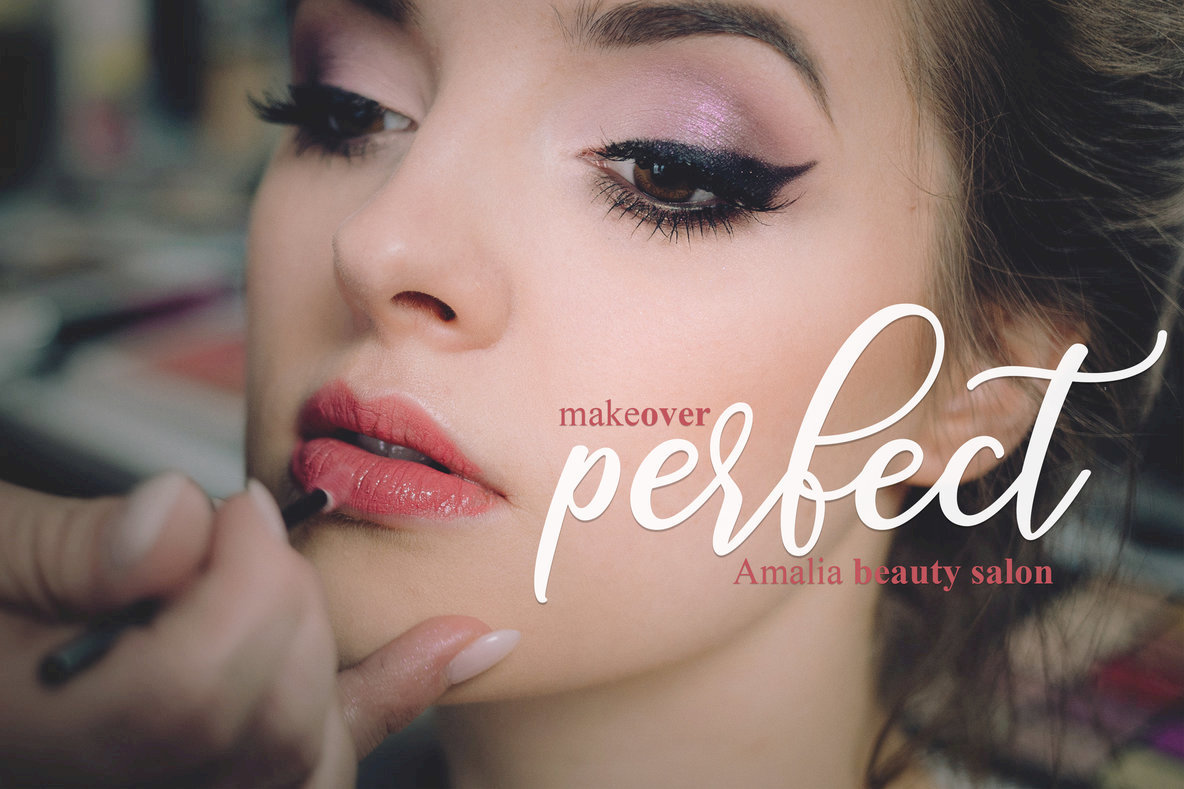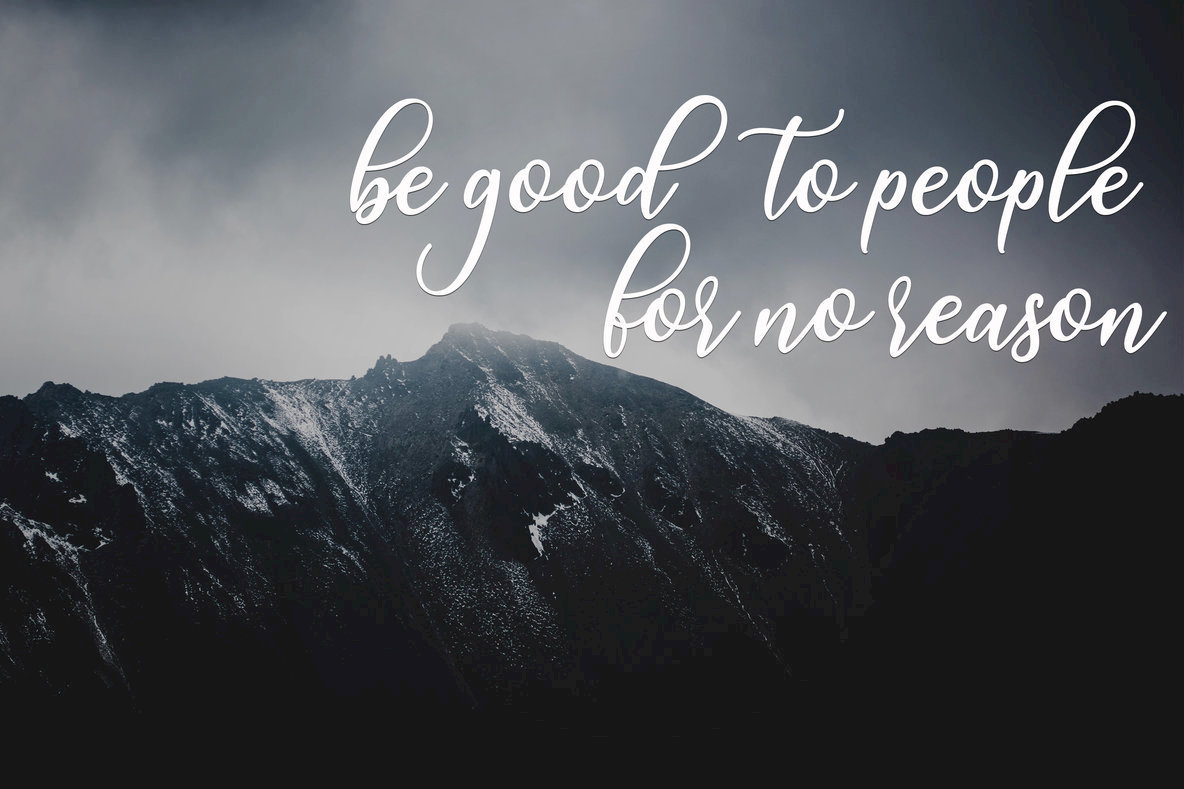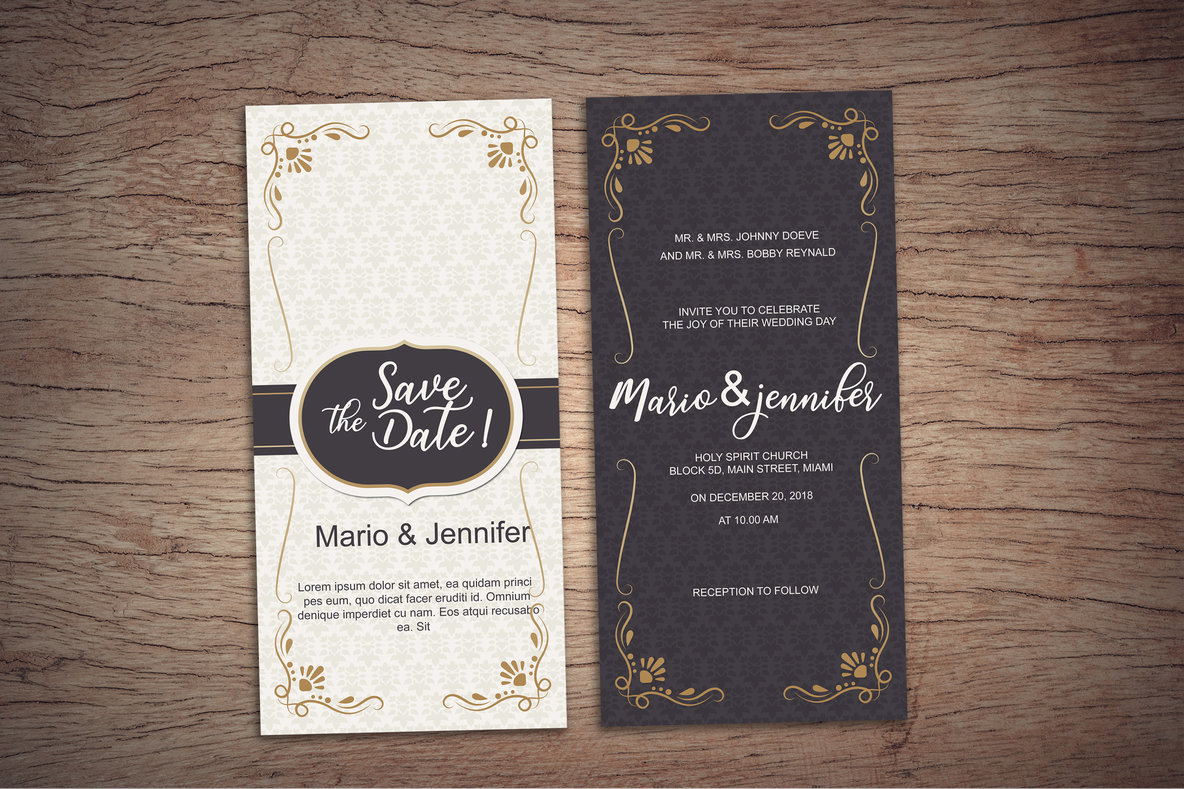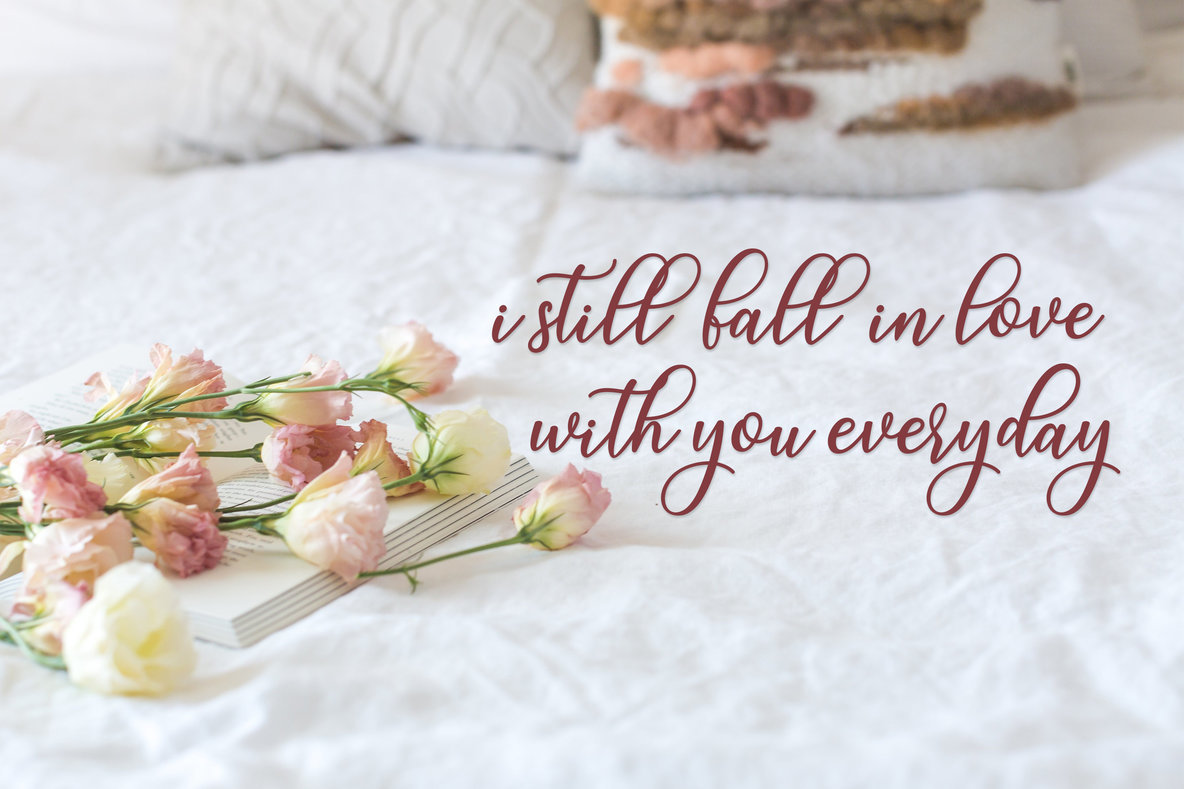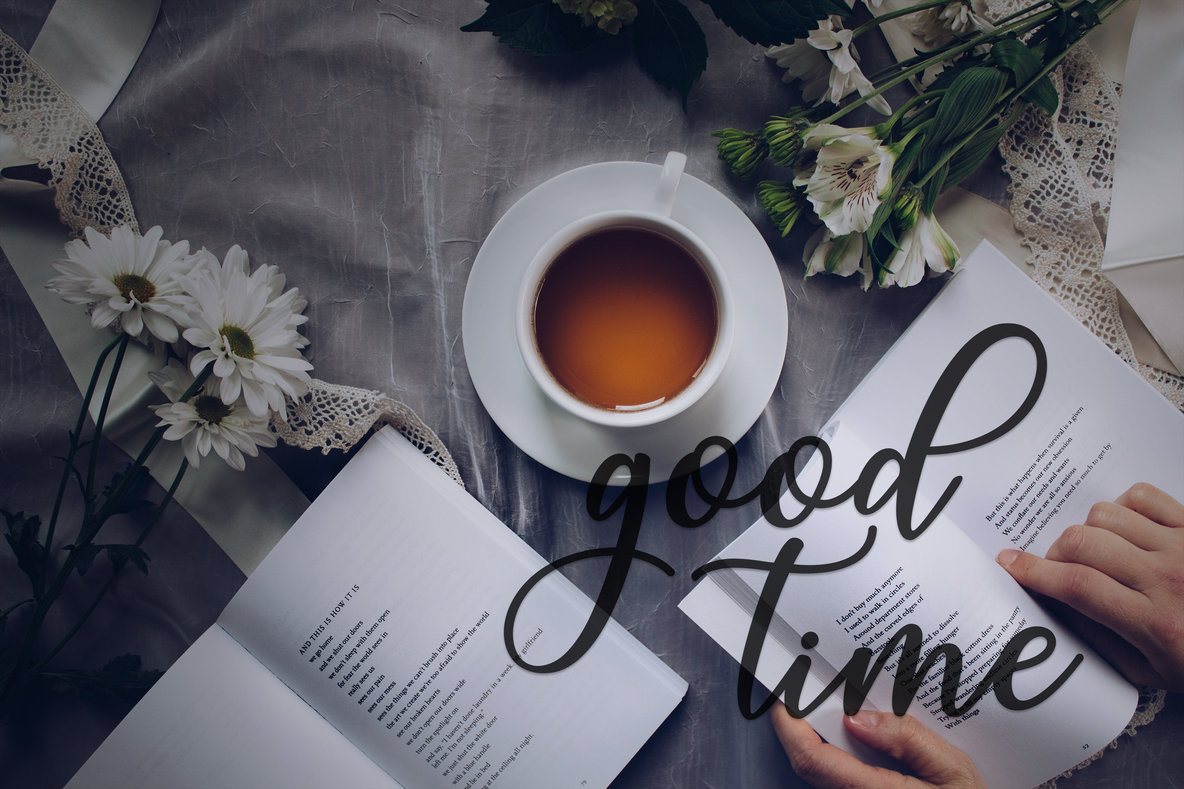
Magic Script Font
Magic Script Regular
Magic Script offers a sophisticated blend of modern calligraphy that captures the fluidity of authentic handwriting. Ideal for designers looking to enhance their creative projects, it seamlessly suits a range of applications such as branding, wedding invitations, and editorial layouts. Its versatile charm extends to designing on mugs, business cards, and posters. To take full advantage of Magic Script's features, ensure you utilize a program that supports OpenType features like Adobe Photoshop, Illustrator, InDesign, or Corel Draw. For users without such software, it's possible to explore the alternate glyphs using Font Book on Mac or Character Map on Windows. Whether utilized for commercial projects or personal crafting, Magic Script provides an avenue for creative expression within modern typography.Magic Script: A Modern Calligraphy Font